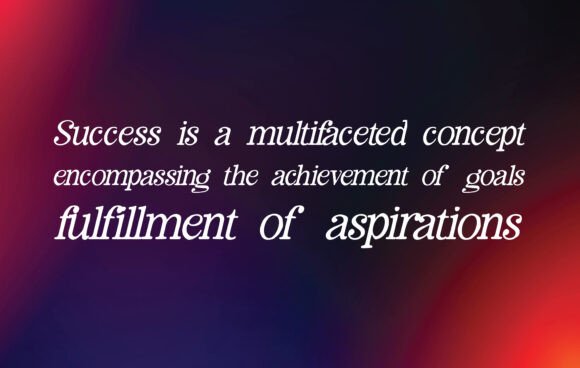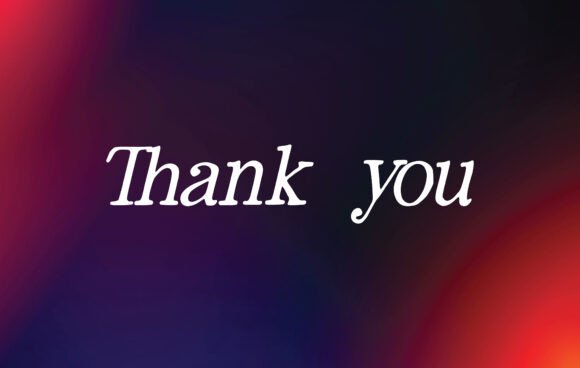
Introduction to Juan Font
Do you remember that moment when a brilliant idea strikes, and you feel like you’re about to bring your creative project to life? It’s like the stars have aligned, and everything just falls into place. For designers, these moments are what make all the hard work worth it. And with the right design resource, they can be even more magical.
That’s where Juan Font comes in – a beautiful, high-quality handwritten font that has the power to elevate your creative ideas to new heights. Whether you’re working on a logo, branding, or a quote, Juan Font is the perfect choice to make it stand out from the crowd.
Key Features of Juan Font
- High-quality, professional font with a transparent background, perfect for creative projects and designs.
- Features a high-resolution design, ideal for use in print and digital applications.
- Designed to be highly legible and versatile, making it suitable for a wide range of creative projects.
- Includes a comprehensive character set, covering a range of languages and special characters.
Honest Review: Juan Font
I recently stumbled upon Juan Font, and I must say it’s been a game-changer for my creative projects. This free download has been a reliable design resource, offering high-quality typography that elevates my work to the next level.
- ✨ High-quality typography: Juan Font offers crisp and clear fonts that are perfect for any creative project.
- ✨ Versatility: Juan Font is suitable for a wide range of creative projects, from graphic design to digital art.
- ⚠️ Limited customization options: While Juan Font is high-quality, it lacks customization options, which might be a drawback for some designers.
Overall, I’m impressed with Juan Font. It’s a great design resource for creatives, and I appreciate the high-quality typography it offers. While it has some limitations, I believe it’s a great choice for most design projects.
Juan Font is a versatile design resource that can be used in a variety of creative projects, such as:
Tips for Getting the Most Out of Juan Font
Juan Font is compatible with most popular design software, including Adobe Creative Cloud (Photoshop, Illustrator, InDesign), Sketch, and Figma. It also supports advanced features like ligatures, swashes, and contextual alternates, making it a great choice for designers working on complex creative projects.